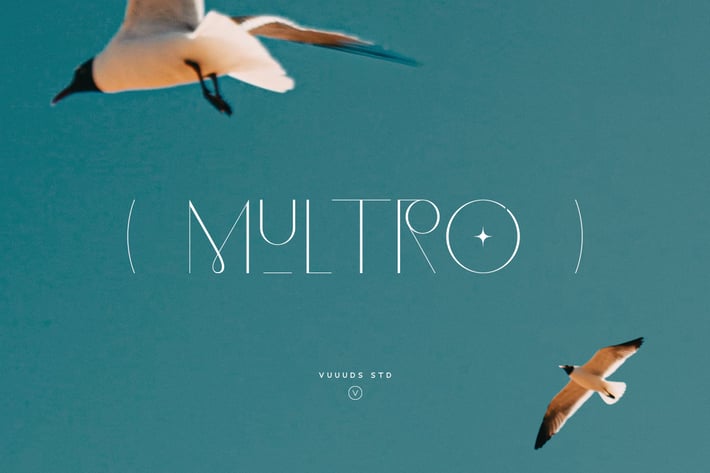
Multro Font
Introducing Multro Font!
Multro is modern unique font, every single letters have been carefully crafted.
Foreign languages support: ÀÁÂÃÄÅÆÇÈÉÊËÌÍÎÏÐÑÒÓÔÕÖØÙÚÛÜÝàáâãäåæçèéêëìíîïðñòóôõöøùúûüýÿ
Multro is modern unique font, every single letters have been carefully crafted.
Foreign languages support: ÀÁÂÃÄÅÆÇÈÉÊËÌÍÎÏÐÑÒÓÔÕÖØÙÚÛÜÝàáâãäåæçèéêëìíîïðñòóôõöøùúûüýÿ